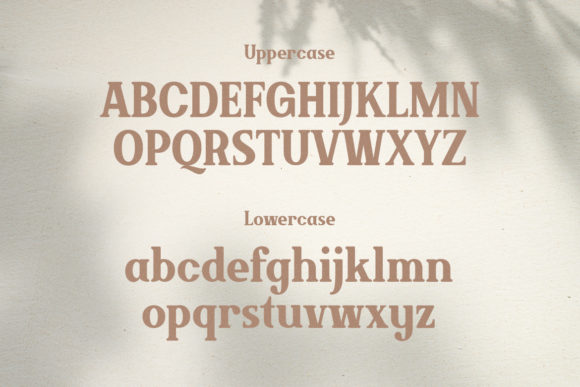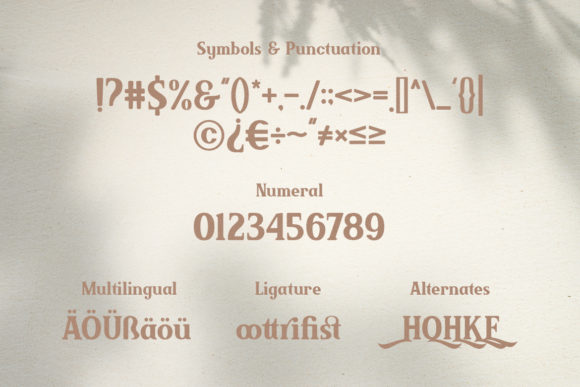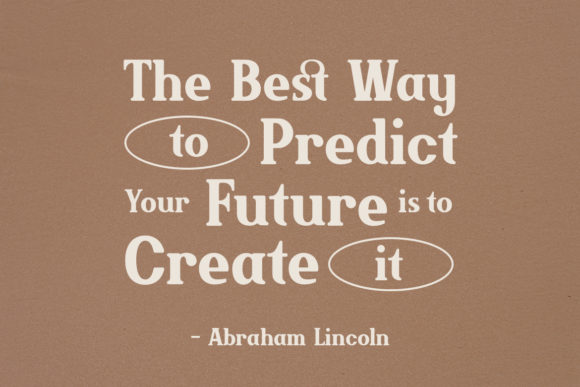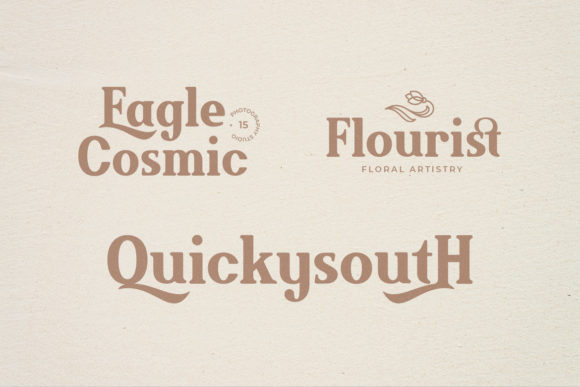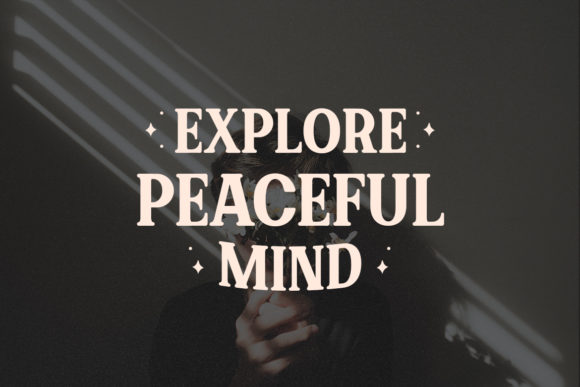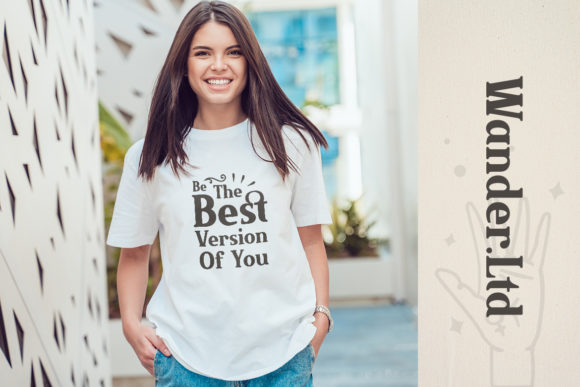
Brickson Font: Elevate Your Designs with Elegance and Sophistication
In the world of typography, fonts play a crucial role in conveying the tone and personality of a design. For designers and crafters seeking a unique and elegant serif font, Brickson is an exceptional choice. This distinct font seamlessly blends traditional influences with a contemporary aesthetic, making it an incredibly versatile addition to any design project.
The Essence of Brickson Font
Brickson is a meticulously crafted serif font that exudes elegance and sophistication. Its neat and refined structure allows it to effortlessly complement a wide range of design projects, from luxurious branding and high-end magazines to elegant wedding invitations and sophisticated packaging. The font’s classic serif features are reimagined with a modern twist, giving it a fresh and distinctive look that sets it apart from more traditional serif fonts.
Key Features of Brickson Font
- Distinctive Serif Design: Brickson’s serifs are carefully designed to add a touch of elegance and refinement to any text, making it perfect for designs that require a sophisticated look.
- Contemporary Aesthetic: Despite its traditional roots, Brickson boasts a contemporary feel that makes it suitable for modern design projects.
- Versatility: This font can easily be matched with an incredibly large set of projects, thanks to its adaptable and harmonious design.
- Neatly Crafted: Every detail in Brickson is meticulously crafted to ensure that it delivers high-quality text that is both readable and visually appealing.
Applications of Brickson Font
The versatility of Brickson font makes it suitable for a myriad of applications. Here are some of the areas where Brickson can truly shine:
- Branding and Logotypes: Use Brickson to create a luxurious and memorable brand identity that stands out from the competition.
- Print Media: Enhance your magazines, newspapers, and books with Brickson’s elegant and readable serif design.
- Wedding and Event Invitations: Add a touch of sophistication and elegance to your invitations and event materials.
- Packaging: Elevate your product packaging with a font that communicates luxury and quality.
- Digital Media: Brickson is also suitable for digital platforms, including websites and mobile apps, where its clarity and elegance can enhance user experience.
Why Choose Brickson Font?
In a sea of fonts, Brickson stands out for several reasons:
- Uniqueness: It offers a fresh take on traditional serif fonts, making it a unique addition to your font library.
- Elegance: Its design exudes elegance, making it perfect for projects that require a sophisticated look.
- Versatility: Brickson can be used across a wide range of projects, making it a valuable asset for designers.
Brickson font is a remarkable addition to the world of typography, offering a perfect blend of traditional influences and contemporary design. Its elegance, versatility, and distinctiveness make it an excellent choice for designers and crafters looking to elevate their projects. Whether you’re working on a luxury brand, an elegant magazine, or a sophisticated event invitation, Brickson is sure to deliver the desired impact. Discover the potential of Brickson font in your designs and experience the difference it can make.